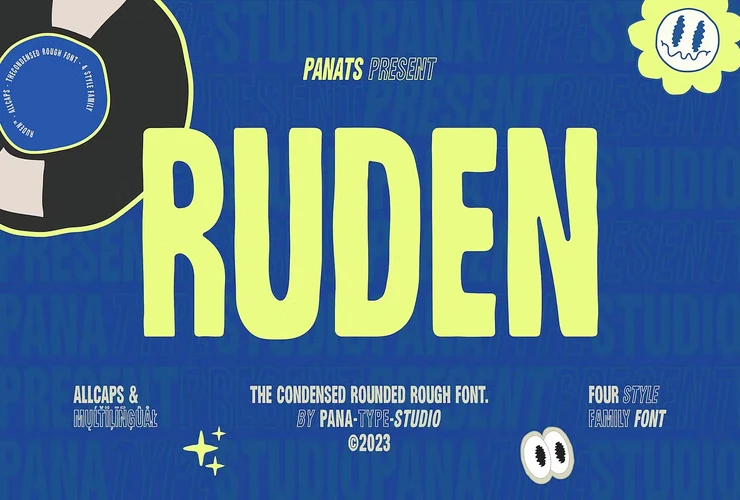
Blog Post: Introducing RUDEN Display Font – A Handwritten, Rough Typeface with Versatility
If you’re looking for a typeface that blends modern vintage charm with organic, hand-drawn style, RUDEN Display Font is the perfect addition to your design toolkit. This condensed, rounded rough typeface comes in four distinct styles—Regular, Italic, Outline, and Outline Italic—offering versatility and elegance for your creative projects.
Whether you’re designing for print or digital media, RUDEN’s unique rough edges and soft aesthetic are ideal for creating logos, posters, packaging, and other graphic elements that need a touch of rustic yet refined style. Carefully crafted to meet all your design needs, this font adds a sophisticated flair while maintaining a handcrafted, authentic look.
Why Choose RUDEN Display Font?
Organic and Handwritten: The condensed and rounded design brings an organic feel, perfect for projects that require a natural, hand-drawn look.
Four Unique Styles: With Regular, Italic, Outline, and Outline Italic versions, you have plenty of options to mix and match based on your project’s mood and aesthetic.
Multilingual Support: RUDEN includes Latin Extended language support, covering Western, Central, and South Eastern European languages, making it ideal for a wide range of audiences.